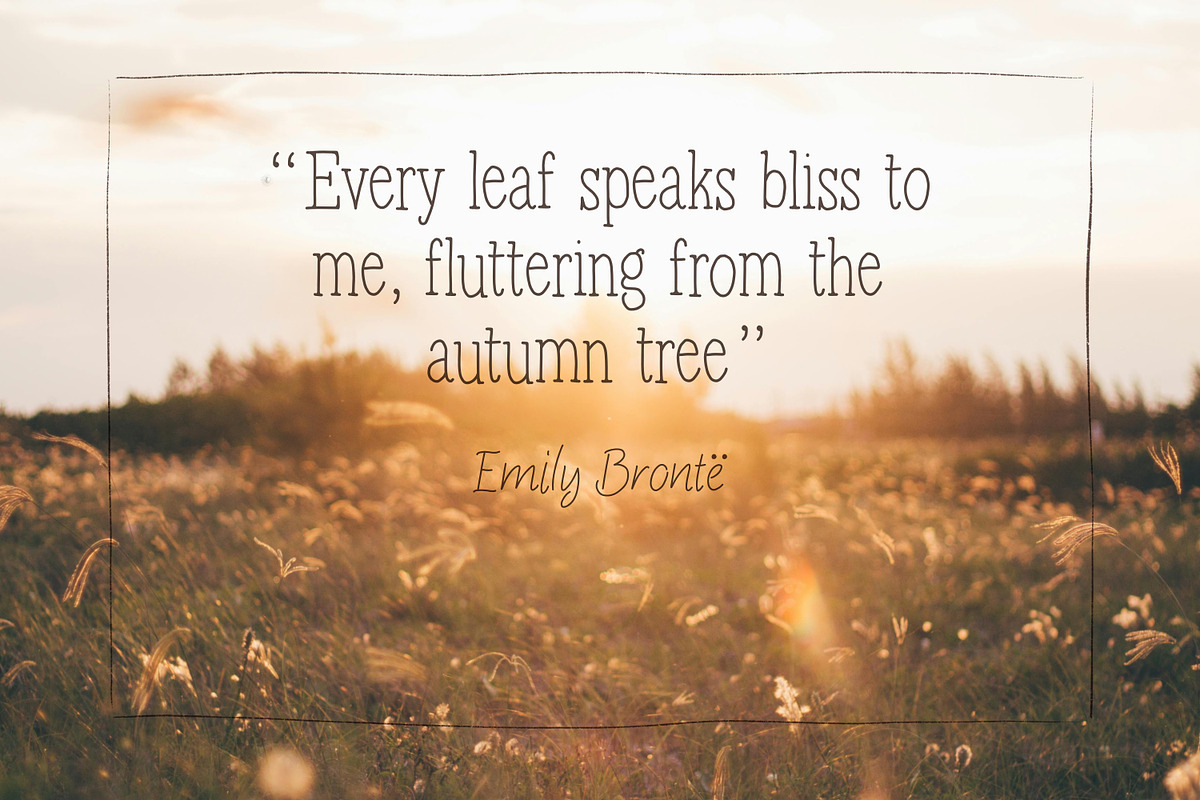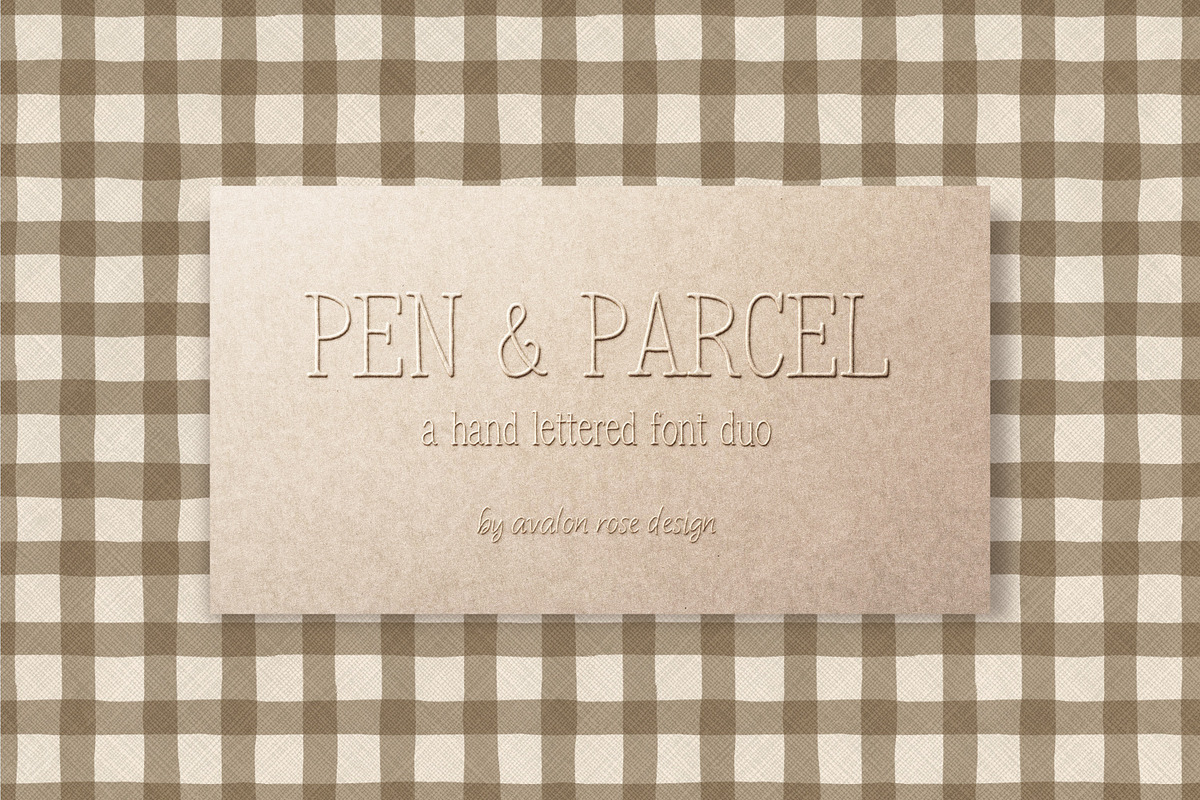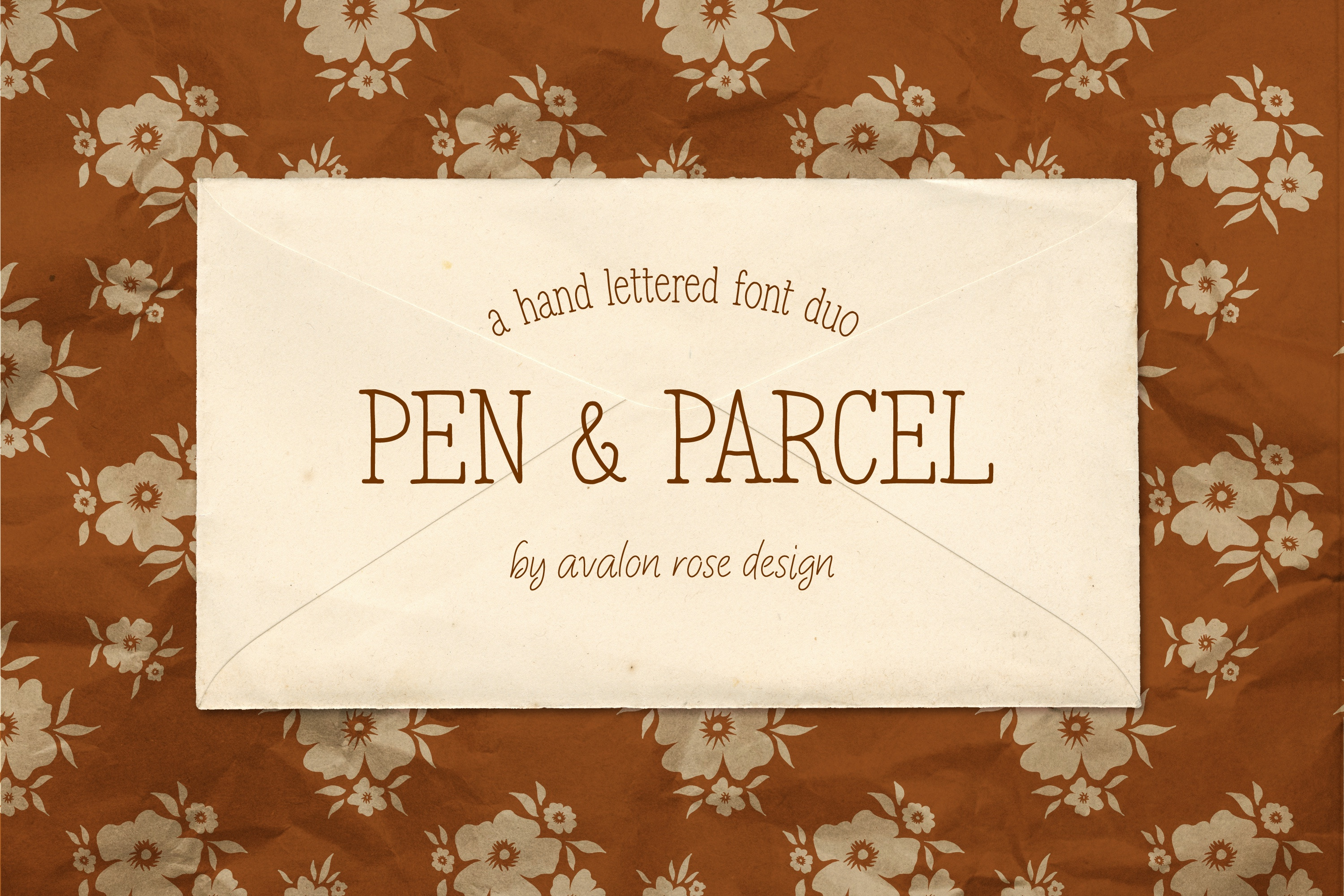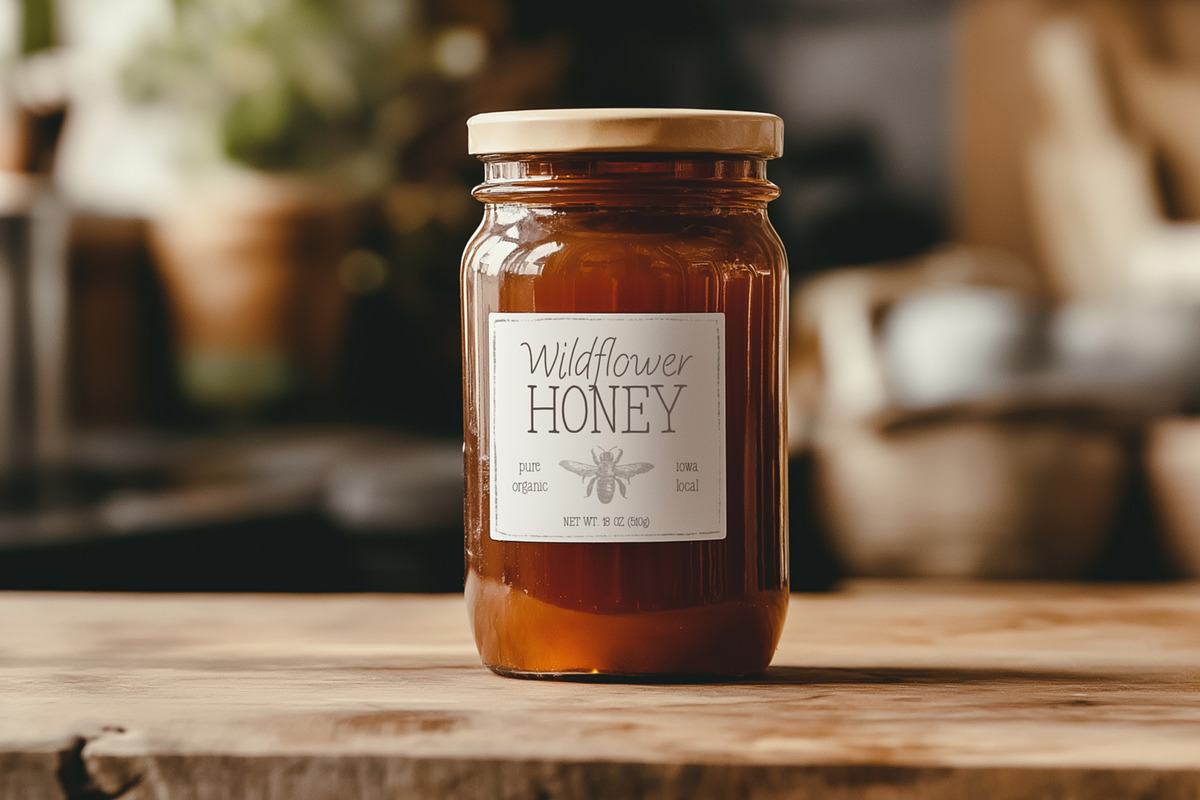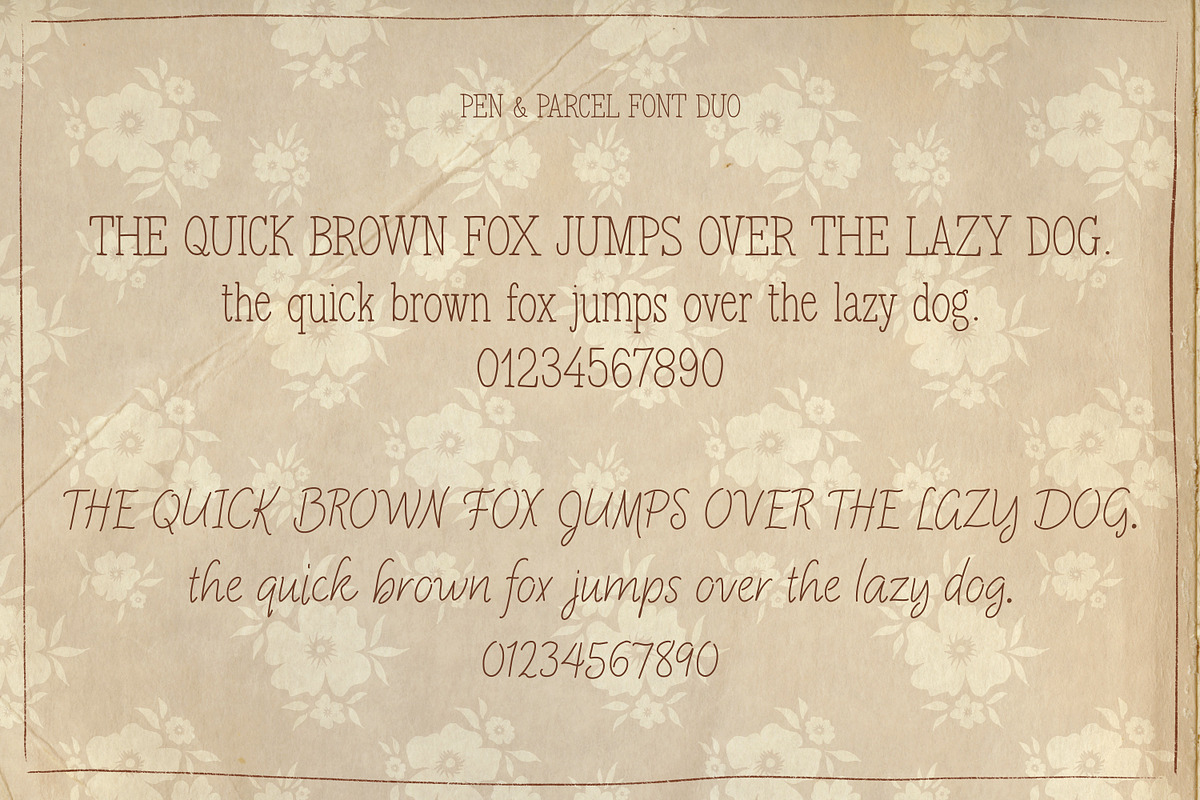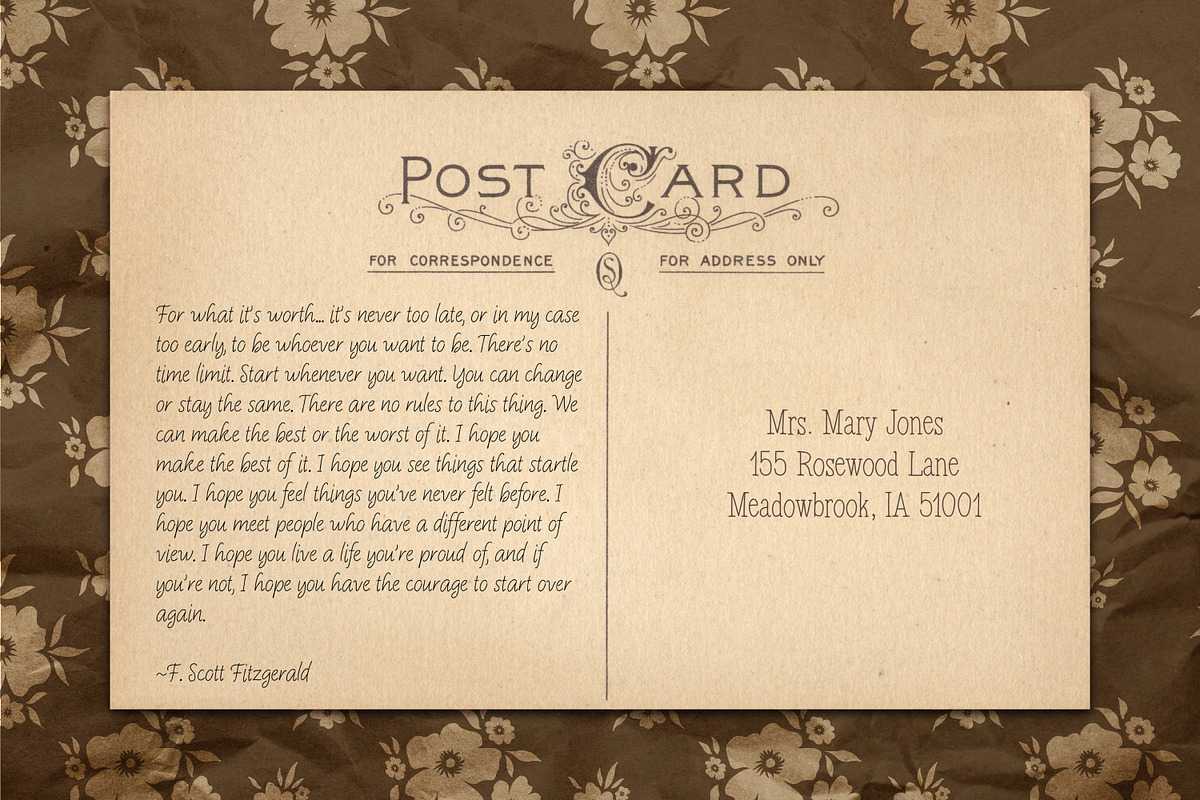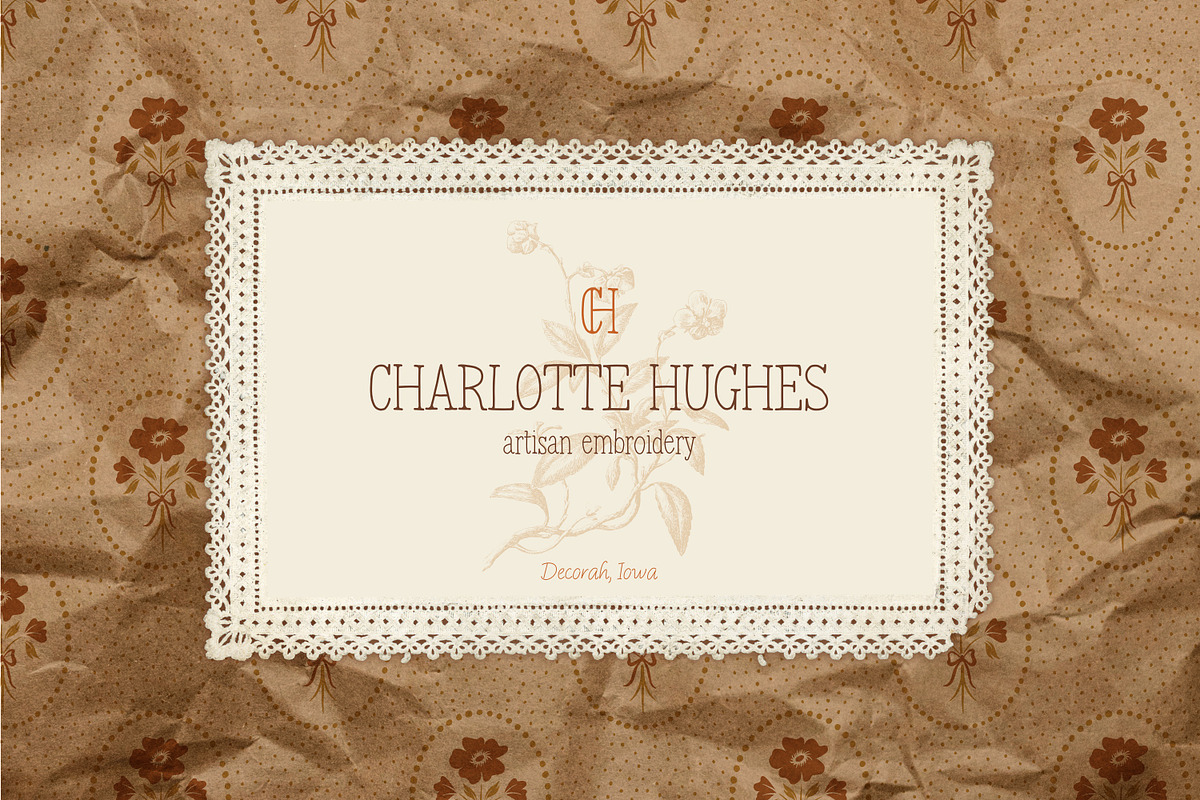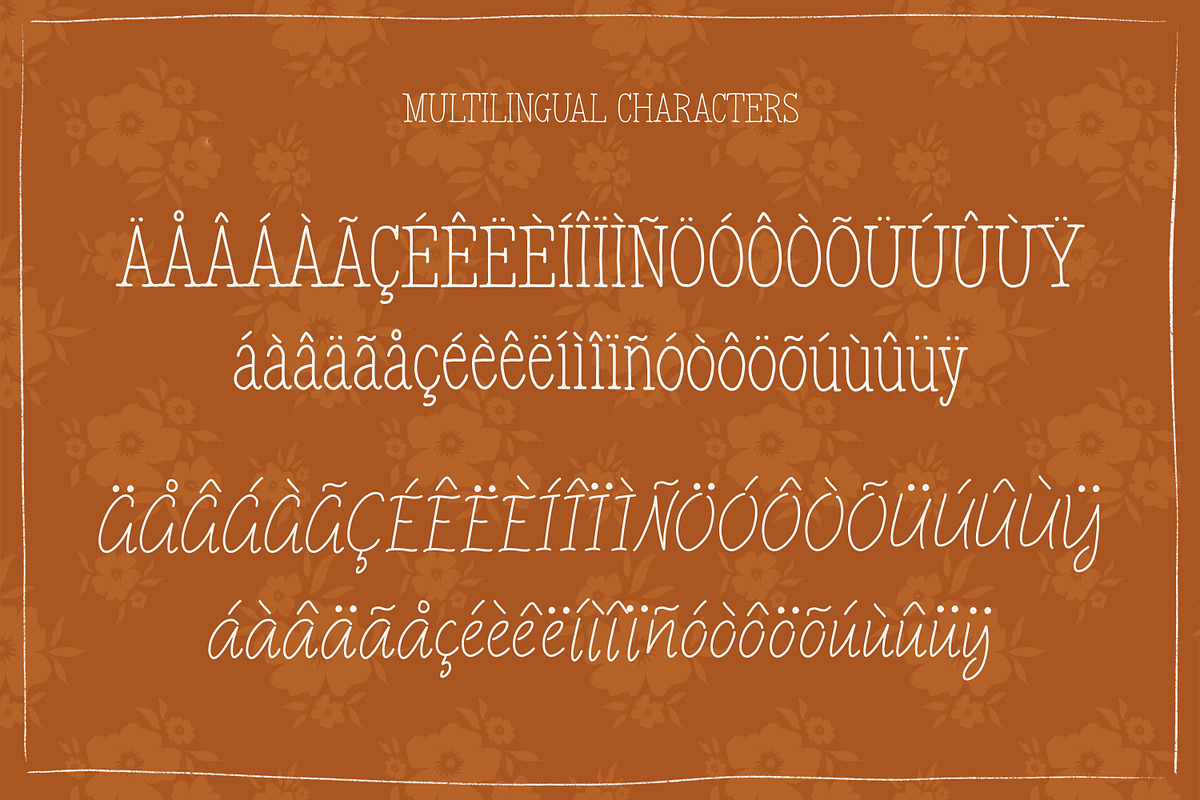
Pen & Parcel Font Duo
Introducing the hand-lettered Pen & Parcel font duo. Pen & Parcel Regular font is a vintage-inspired serif font with imperfect edges to add a rustic touch. Pen & Parcel Script font is a lovely example of casual handwriting.
These two fonts are perfect for clothing, packaging, mugs, home decor, social media marketing, logos, and more.